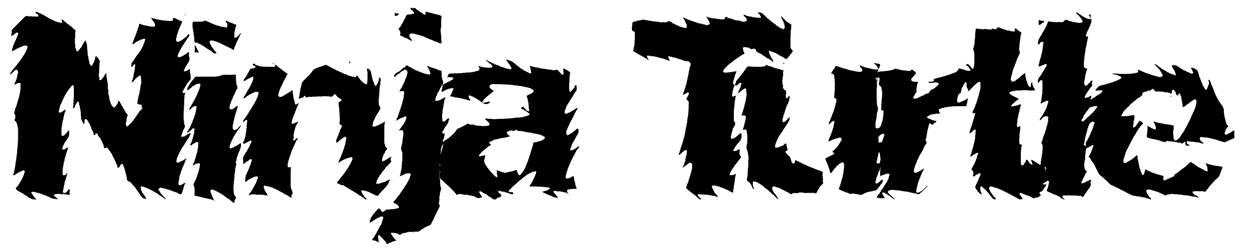
Ninja Turtle Font
There’s no escaping a rough imprint once you decide to go with Ninja Turtle. This ninja font provides your designs with a quirky style like no other. Pull the trigger on impressing your audience by unleashing a monstrous undertone in a fearless way. Exhilarating, isn’t it?
On the plus side, Ninja Turtle and its jagged letters keep you company by featuring a serious character in your album covers, video clips, gym flyers, and everything from the same kind of category.